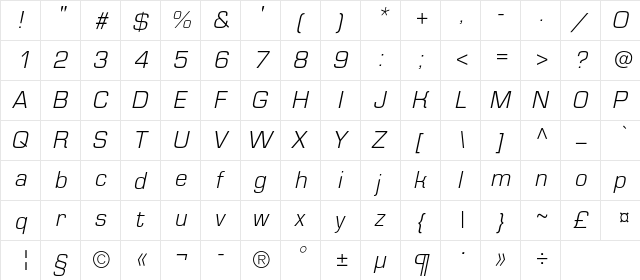
EurofontLightC Italic Font Preview
Design Context for EurofontLightC Typeface
EurofontLightC takes a measured approach to typography — its balanced proportions and neutral character make it a reliable workhorse for both digital and print work. The dynamic lean of this cut emphasises speed and emphasis in any layout. Its slender proportions lend an understated elegance to any composition.